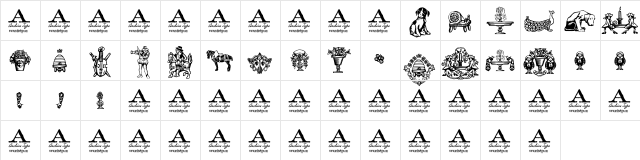
Archive Woodchild Regular
Design Context for Archive Woodchild Typeface
Archive Woodchild echoes the hand-painted signage and woodblock typography of the American frontier, with a warm, rugged personality.
Perfect for barbecue restaurants, country music branding, vintage poster design, and rustic packaging.
Font Pairing: Combine Archive Woodchild with a simple slab or neutral sans — period-accurate companions reinforce the vintage feel without competing for attention.
Pro Tip: Pair Archive Woodchild with aged textures or distressed backgrounds to amplify its vintage personality.